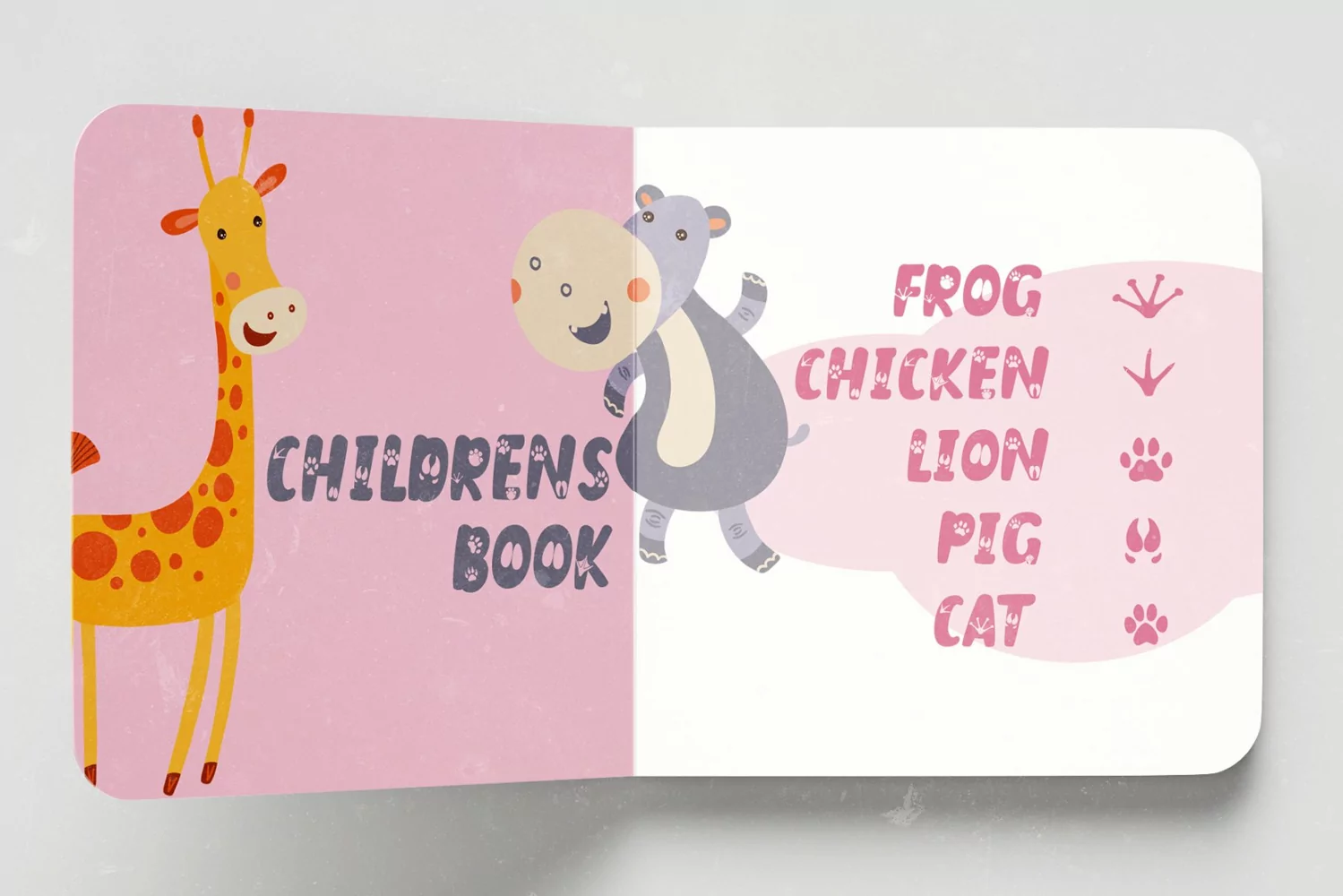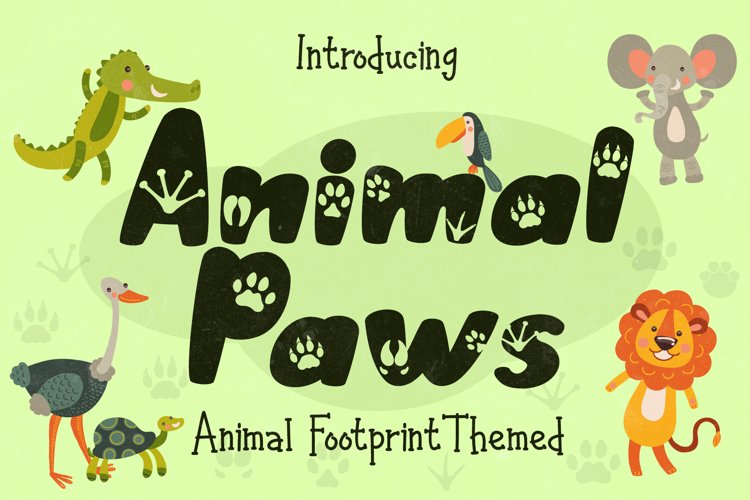
Animal Paws embodies fun, quirkiness and authenticity. This enchanting handwritten font will turn any creative idea into a true standout. It will elevate a wide range of design projects to the highest level, be it Playful craft themed, Children Book, Tshirt kids, and much more!
Alternate Paws Character